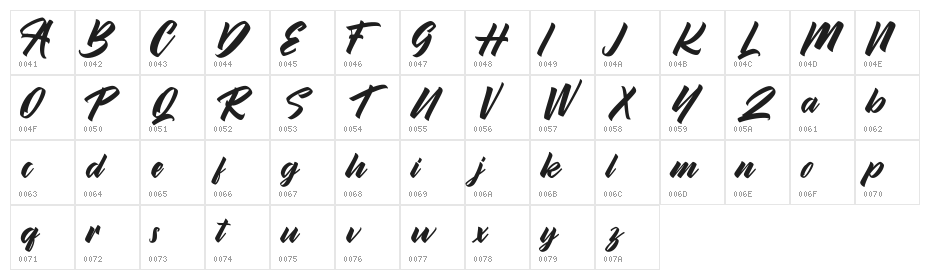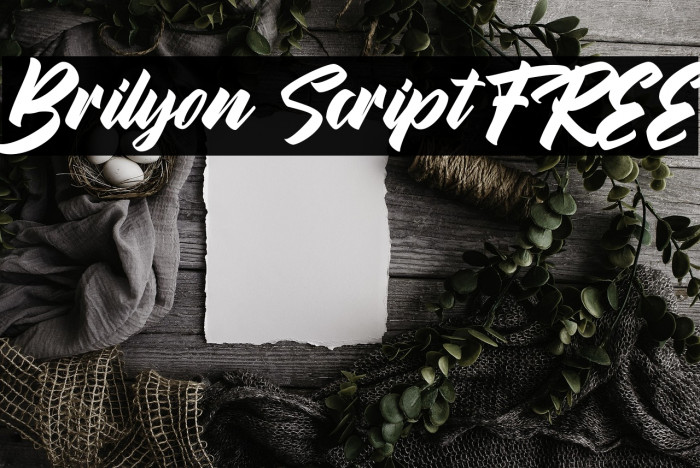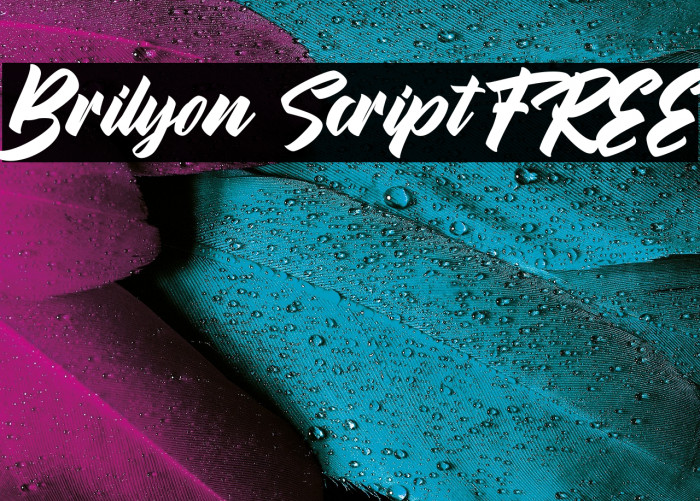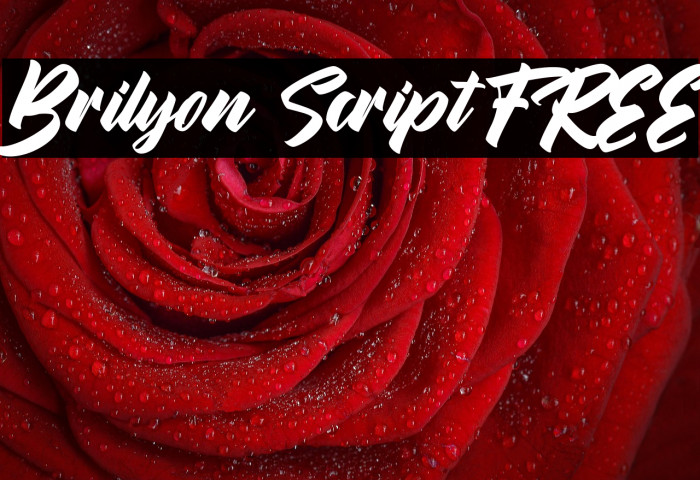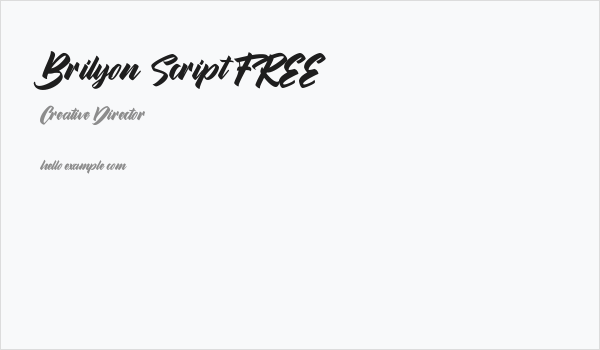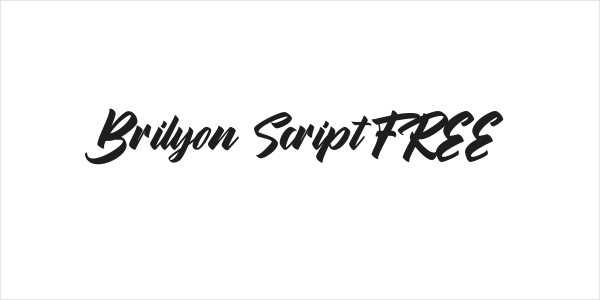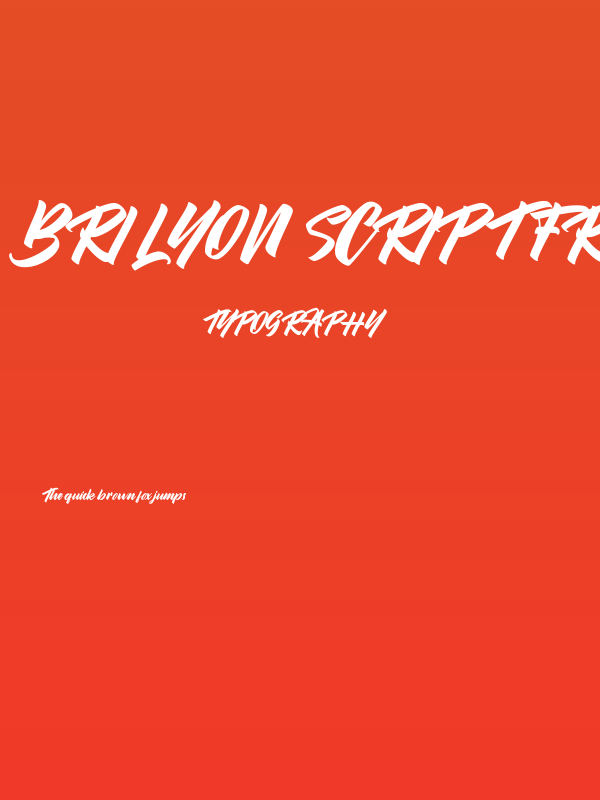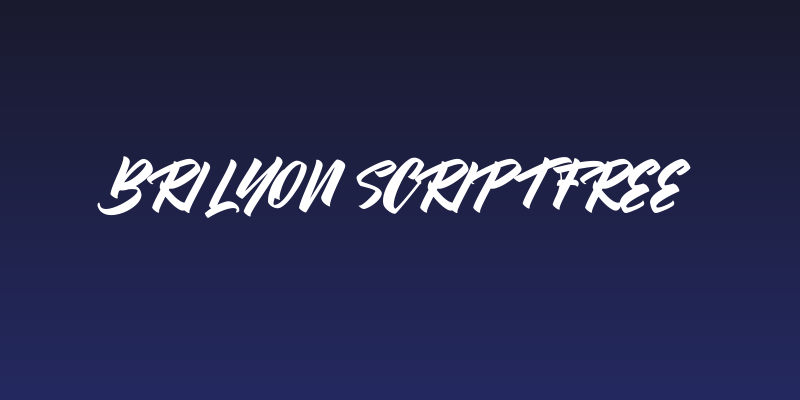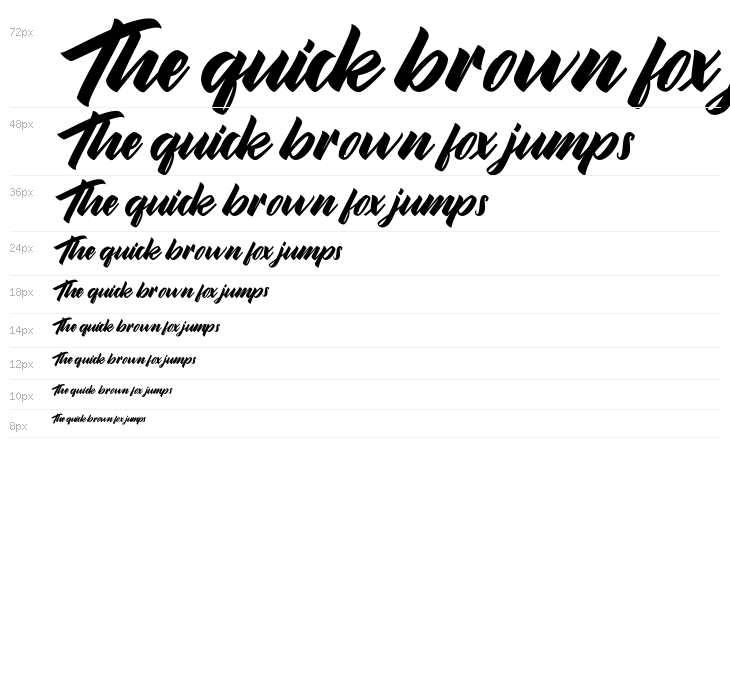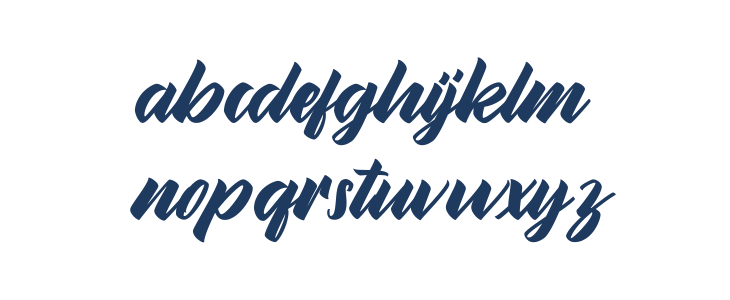
Brilyon Script FREE Font
Brilyon Script FREE Description
This font exhibits a bold and expressive script style, characterized by its fluid and dynamic strokes. The letters are interconnected, creating a sense of movement and elegance. The uppercase letters are particularly striking, with dramatic flourishes and a sense of grandeur. The lowercase letters maintain a consistent flow, enhancing readability while preserving the artistic flair. The numbers and special characters are crafted with the same attention to detail, ensuring a cohesive look across all elements. This font is ideal for projects that require a touch of sophistication and personality.